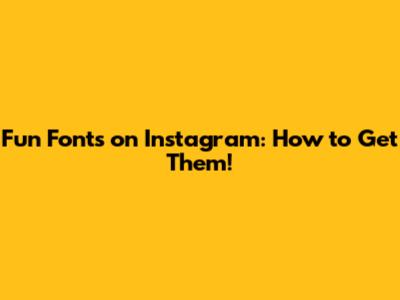
Want to spice up your Instagram game with some fun fonts? You've come to the right place! Instagram's default font can get a little stale after a while, and adding a unique touch to your captions, bios, and stories can really make your profile stand out. The good news is, it's super easy to do! You don't need any special tech skills or secret hacks. This guide will walk you through everything you need to know to start using cool and quirky fonts on Instagram.
Why Use Fun Fonts on Instagram?
Before we dive into how to get those snazzy fonts, let's talk about why you should bother. Using fun fonts on Instagram isn't just about aesthetics; it's a strategic way to enhance your brand, grab attention, and express your personality. Think of your Instagram profile as your digital storefront. You want it to be inviting, engaging, and reflective of who you are or what your brand represents.
Enhancing Your Brand Identity
Consistent branding is key to success on social media. Fun fonts can be a vital part of your brand's visual identity. By choosing fonts that align with your brand's style, you can create a cohesive and memorable look across all your content. For example, if you run a playful and creative brand, you might opt for a whimsical, handwritten-style font. On the other hand, if your brand is more sophisticated and professional, a sleek, modern font might be a better fit. Using the same fonts consistently helps your audience recognize your content instantly, even without seeing your logo.
Grabbing Attention
In the crowded world of Instagram, it's tough to stand out. Eye-catching fonts can be a game-changer. When users are scrolling through their feeds, a unique font can stop them in their tracks and make them pay attention to your post. This is especially useful for important announcements, promotions, or anything else you want to highlight. Think of it as adding a visual exclamation point to your content. Just be sure to use fonts sparingly and strategically to avoid overwhelming your audience.
Expressing Your Personality
Instagram is all about showcasing your personality and connecting with others. Fun fonts offer a creative way to express yourself and add a personal touch to your content. Whether you're sharing a funny anecdote, a heartfelt message, or a creative project, the right font can help convey the tone and emotion you're aiming for. Using different fonts can also add variety and visual interest to your profile, making it more engaging and appealing to your followers.
How to Get Fun Fonts: Step-by-Step
Okay, guys, let's get to the good stuff! Here’s a simple, step-by-step guide on how to start using fun fonts on Instagram right now. It's easier than you think! We'll be using online font generators, which are the most straightforward method.
Step 1: Find a Font Generator
First things first, you'll need to find a reliable font generator. There are tons of free options available online. Just do a quick Google search for "Instagram font generator," and you'll find a bunch of websites to choose from. Some popular choices include LingoJam, Cool Font, and Instagram Fonts. Feel free to try out a few different generators to see which one you like best. These tools work by using Unicode characters, which are symbols that look like different fonts but are actually interpreted as text by Instagram.
Step 2: Type Your Text
Once you've chosen a font generator, simply type the text you want to use into the input box. This could be anything from your Instagram bio to a caption for your latest post. Most font generators will then display your text in a variety of different fonts below. Take your time to browse through the options and find a font that suits your style and the message you're trying to convey.
Step 3: Copy and Paste
After you've found the perfect font, simply copy the text from the font generator. Then, head over to Instagram and paste the text into your bio, caption, or story. It's that easy! Instagram will recognize the Unicode characters and display your text in the chosen font. Just be aware that some fonts may not be supported on all devices, so it's always a good idea to double-check how your text looks on different screens.
Step 4: Experiment and Have Fun!
The best part about using font generators is that you can experiment with different fonts and styles to find what works best for you. Don't be afraid to try out new things and get creative! You can use different fonts for different purposes, such as highlighting important information, adding a personal touch to your captions, or creating a unique visual identity for your brand. The possibilities are endless!
Tips for Using Fun Fonts Effectively
Now that you know how to get fun fonts on Instagram, let's talk about how to use them effectively. Using fonts strategically can make a big difference in how your content is received. Here are some tips to keep in mind:
Use Fonts Sparingly
While fun fonts can be a great way to add visual interest to your content, it's important to use them sparingly. Overusing fonts can make your content look cluttered and overwhelming. Stick to using one or two different fonts per post, and use them to highlight key words or phrases rather than replacing all of your text.